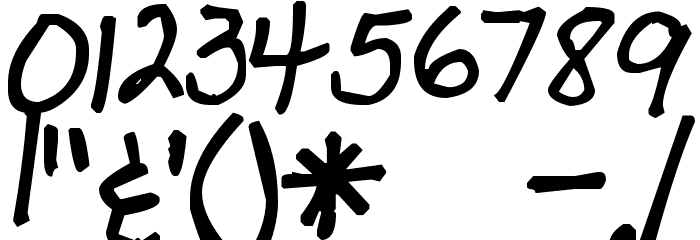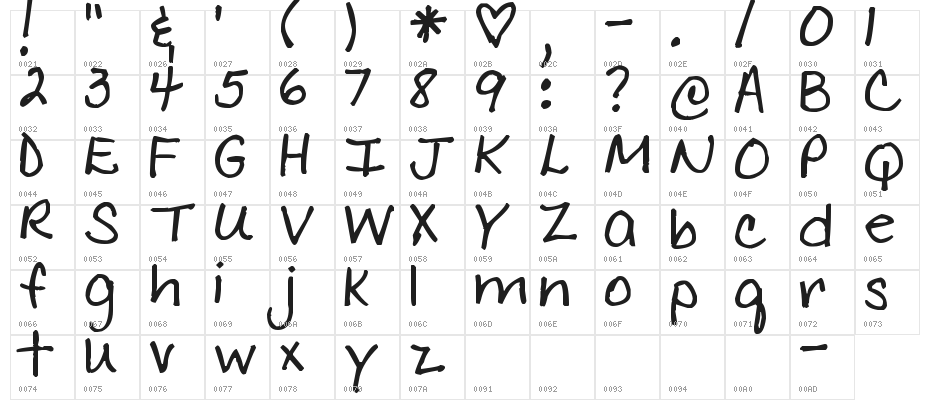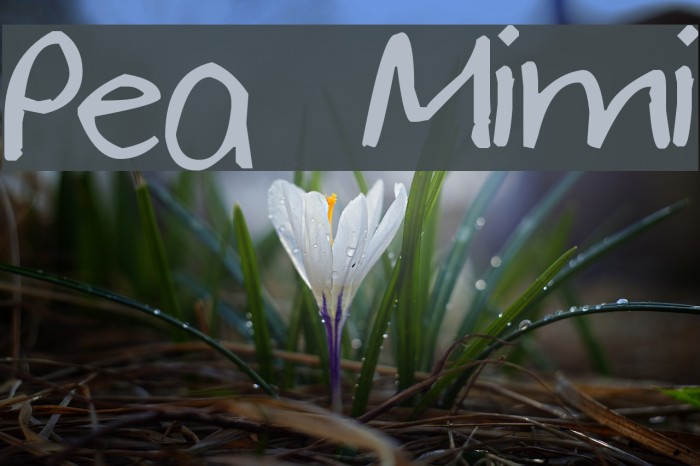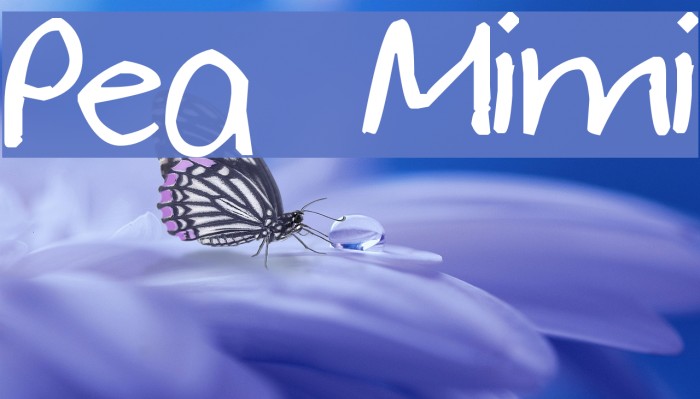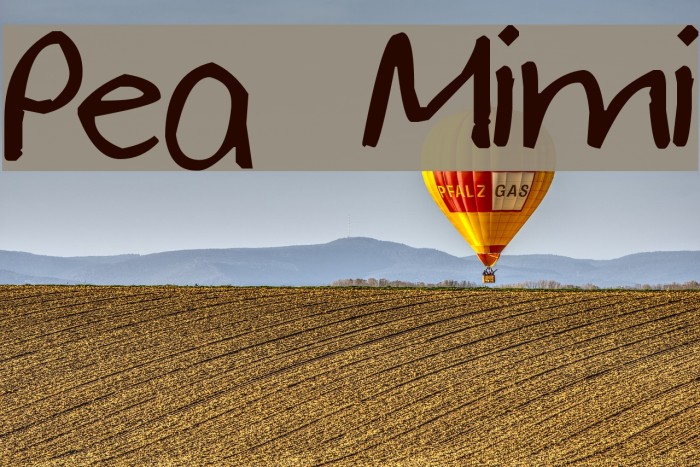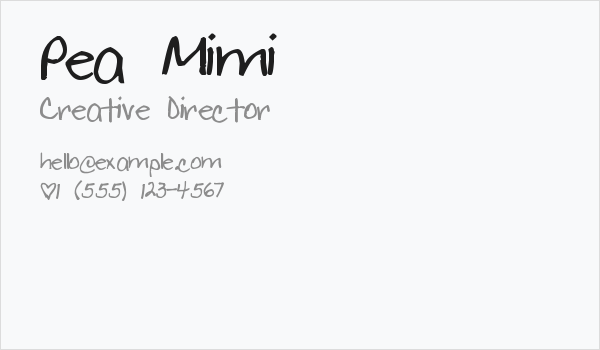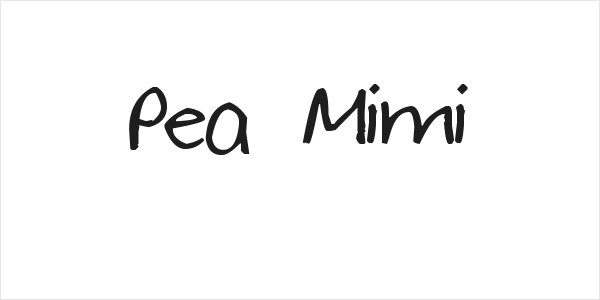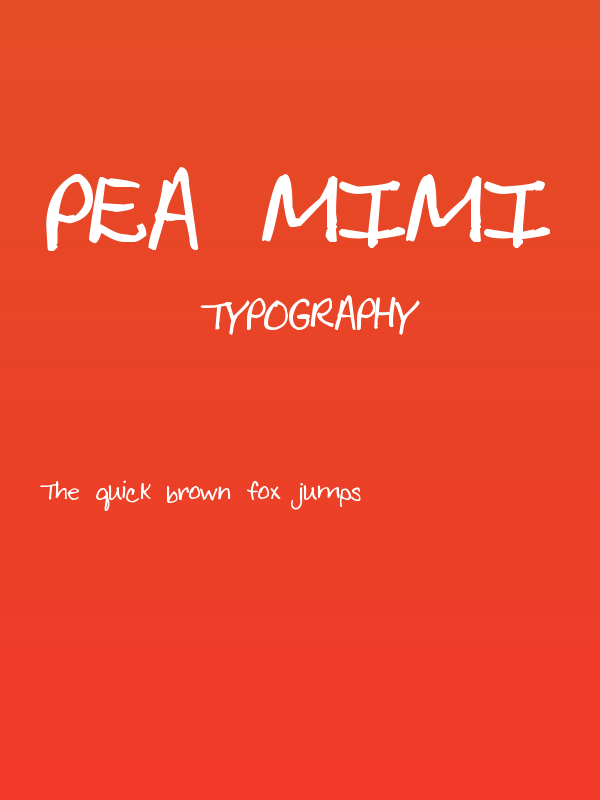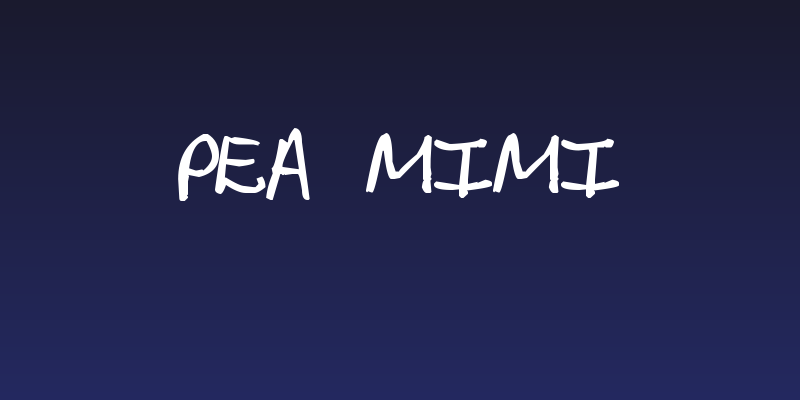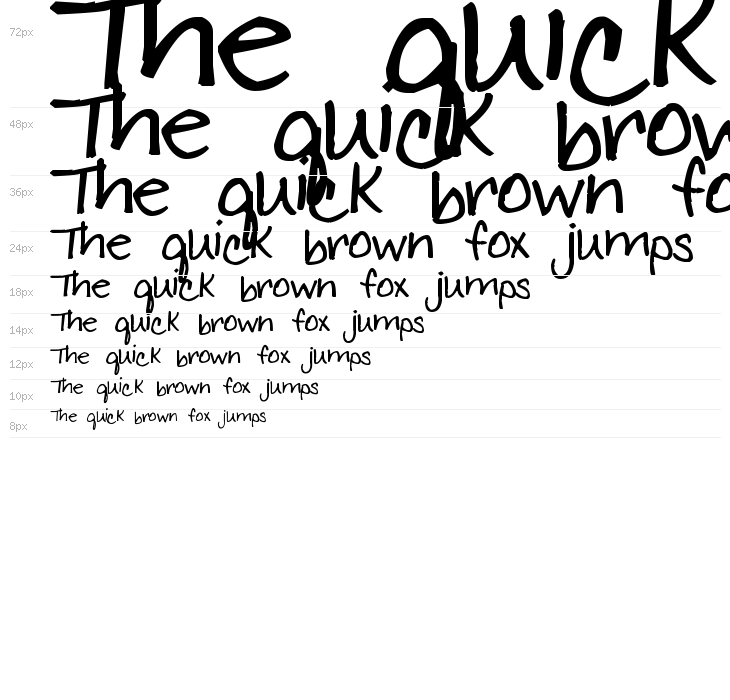
Pea Mimi Font
Pea Mimi Description
This font exudes a playful and casual handwritten style, characterized by its uneven strokes and informal appearance. The letters are slightly slanted, giving a sense of movement and spontaneity. The uppercase and lowercase letters maintain a consistent style, with rounded edges and a slightly irregular baseline that enhances its handwritten feel. The numbers and special characters follow the same playful aesthetic, making it suitable for projects that require a personal touch. The font's overall appearance is friendly and approachable, making it ideal for creative and informal designs.
| Use Case | Logos, Headlines, Informal text |
| Proposed Projects | Ideal for greeting cards, personal blogs, children's books, and informal invitations. |